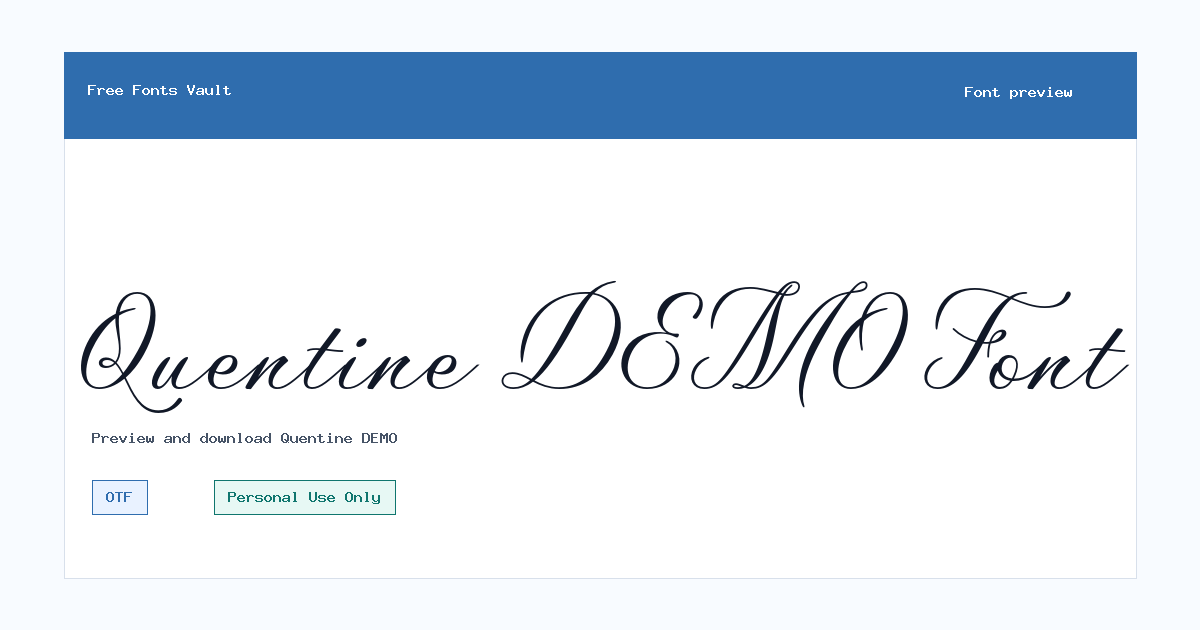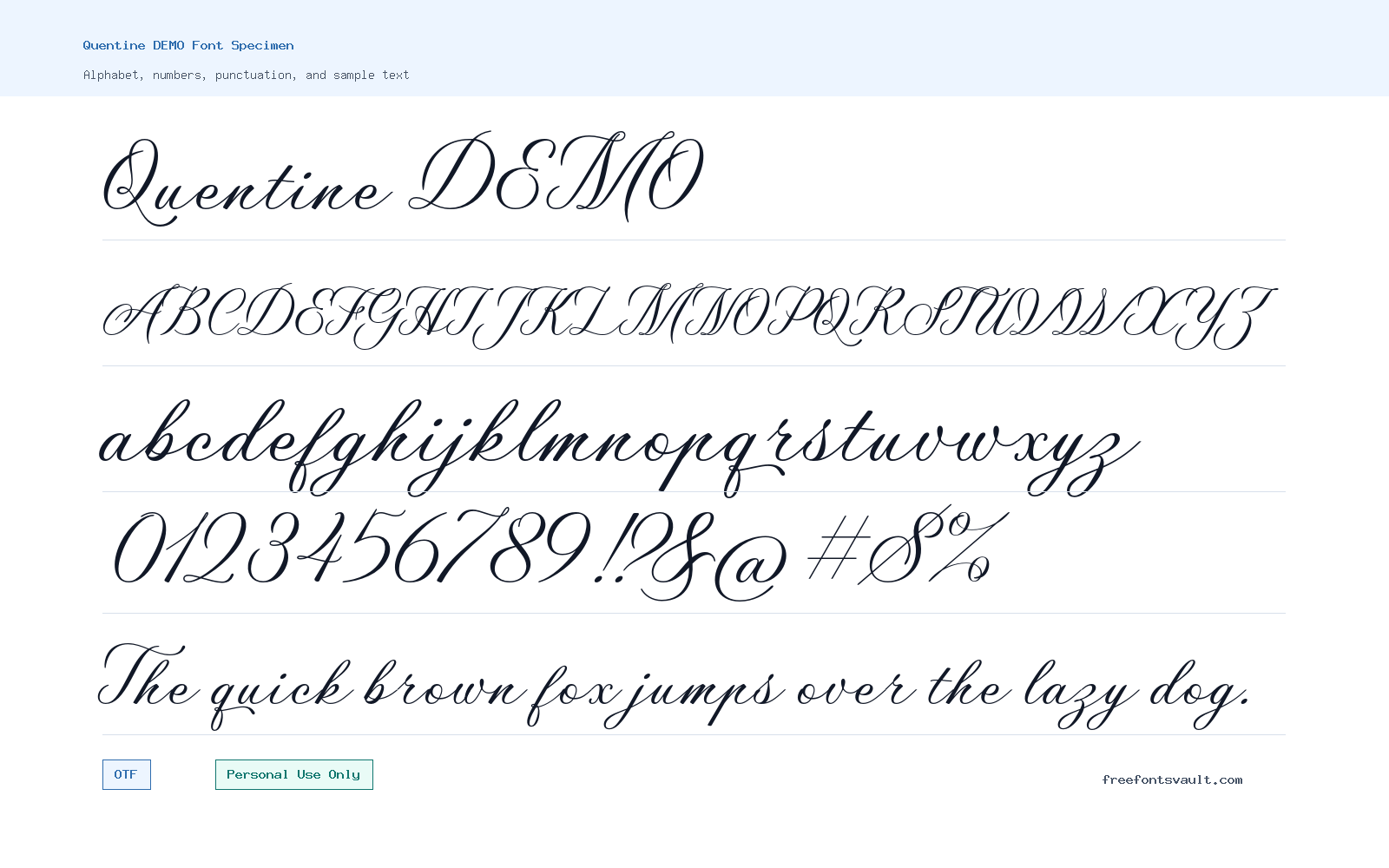
Quentine DEMO
- Designer Ratna Krismawati
- Foundry Krismagraph
Quentine DEMO font.
Quentine DEMO is a calligraphy script font for personal projects, previews, and design testing. Its script style is best suited to short, expressive text where the lettering can be shown at a comfortable size.
About Quentine DEMO
Use Quentine DEMO where the font can act as the main visual accent rather than as long reading text. Try it for names, short quotes, wedding-style wording, invitation mockups, greeting card headings, boutique labels, social graphics, watermark-style text, and logo draft concepts for personal exploration. Script fonts often need extra care with spacing, size, and background contrast, so preview your exact words before downloading if you plan to use connected letters, uppercase initials, or decorative words.
- Calligraphy script style suited to short display text and decorative headings
- Invitation mockups, greeting cards, name designs, and personal stationery concepts
- Short social media graphics, quote artwork, labels, and personal branding experiments
Quentine DEMO is credited to designer Ratna Krismawati and foundry Krismagraph.
For best results, test Quentine DEMO with the actual words you want to use. Script fonts can look very different depending on letter combinations, capitalization, and spacing. Keep the text short, give it room to breathe, and avoid using it for paragraphs or small interface text. Pair it with a simple sans serif or clean serif for supporting information so the script remains easy to read.
What kind of font is Quentine DEMO?
Quentine DEMO is a calligraphy script font. It is designed for decorative, handwritten-style display text rather than long body copy.
Who designed Quentine DEMO?
Quentine DEMO is credited to Ratna Krismawati, with Krismagraph listed as the foundry.
What should I use Quentine DEMO for?
Use it for short personal-use designs such as invitations, greeting cards, names, quote graphics, labels, and decorative headings. Always test readability at the size you plan to use.